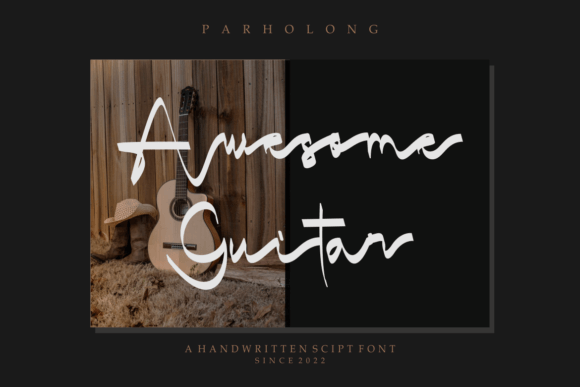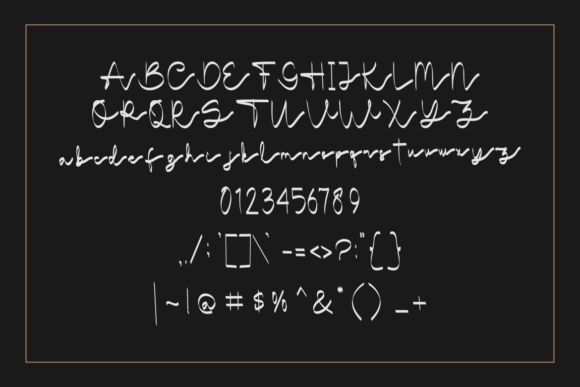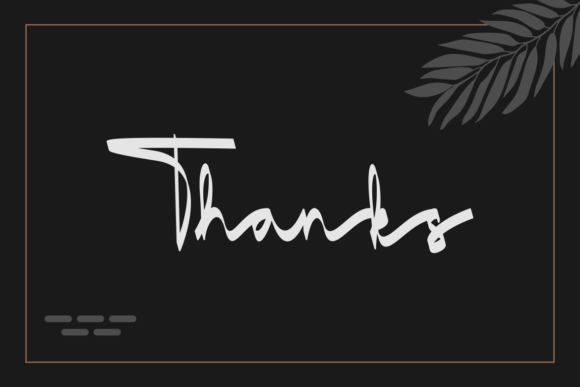
Introduction to Parholong Font
Have you ever been working on a creative project, pouring your heart and soul into it, and then suddenly, you stumble upon the perfect font that takes it to the next level? That’s exactly what happened to me when I discovered the Parholong Font. Its natural and elegant style is a game-changer for any design project, adding a touch of sophistication and authenticity that’s hard to find elsewhere.
As a designer, I can attest that finding the right font can make all the difference in a project’s success. That’s why I’m excited to share with you the wonders of the Parholong Font, a high-quality design resource that’s sure to elevate your creative ideas. With its transparent background and unique characteristics, this font is a must-have for any designer looking to add a personal touch to their work.
Key Features of Parholong Font
- Unique, hand-drawn design suitable for creative projects and artistic expressions
- High-quality font with a transparent background, ideal for use on various design resources
- Perfect for designers looking for a distinctive, creative font to enhance their design projects
Honest Review: Parholong Font
I recently stumbled upon the Parholong Font, and I’m excited to share my thoughts with you. As a designer, I’m always on the lookout for high-quality design resources that can elevate my creative projects.
What works well: ✨ The Parholong Font has a unique, modern aesthetic that’s perfect for a wide range of creative projects. The font is highly versatile and can be used for both print and digital designs. I particularly appreciate the transparent background, which makes it easy to customize and layer with other design elements.
What’s not so great: ⚠️ While the Parholong Font is a great addition to any design resource library, it’s not without its limitations. The font is a free download, which means it may not be as polished or refined as some of the more expensive options on the market. Additionally, the font’s transparency feature can be a bit finicky at times, requiring some extra tweaking to get it just right.
Overall impression: I’m thoroughly impressed with the Parholong Font. Its unique design and high-quality features make it an excellent choice for designers working on creative projects. While it may have some limitations, the benefits far outweigh the drawbacks. I’d definitely recommend the Parholong Font to anyone looking for a reliable and versatile design resource.
- Unique, modern aesthetic
- Highly versatile
- Perfect for print and digital designs
Tips for Getting the Most Out of Parholong Font
For a high-quality design, use the Parholong Font with a transparent background. This will give your design a clean and professional look. You can also use the Parholong Font in combination with other design resources to create a unique and creative project.
Comparison: While Parholong Font has a more playful feel, Great Vibes Font is more elegant and sophisticated. Great Vibes Font is ideal for projects where a touch of sophistication is required.